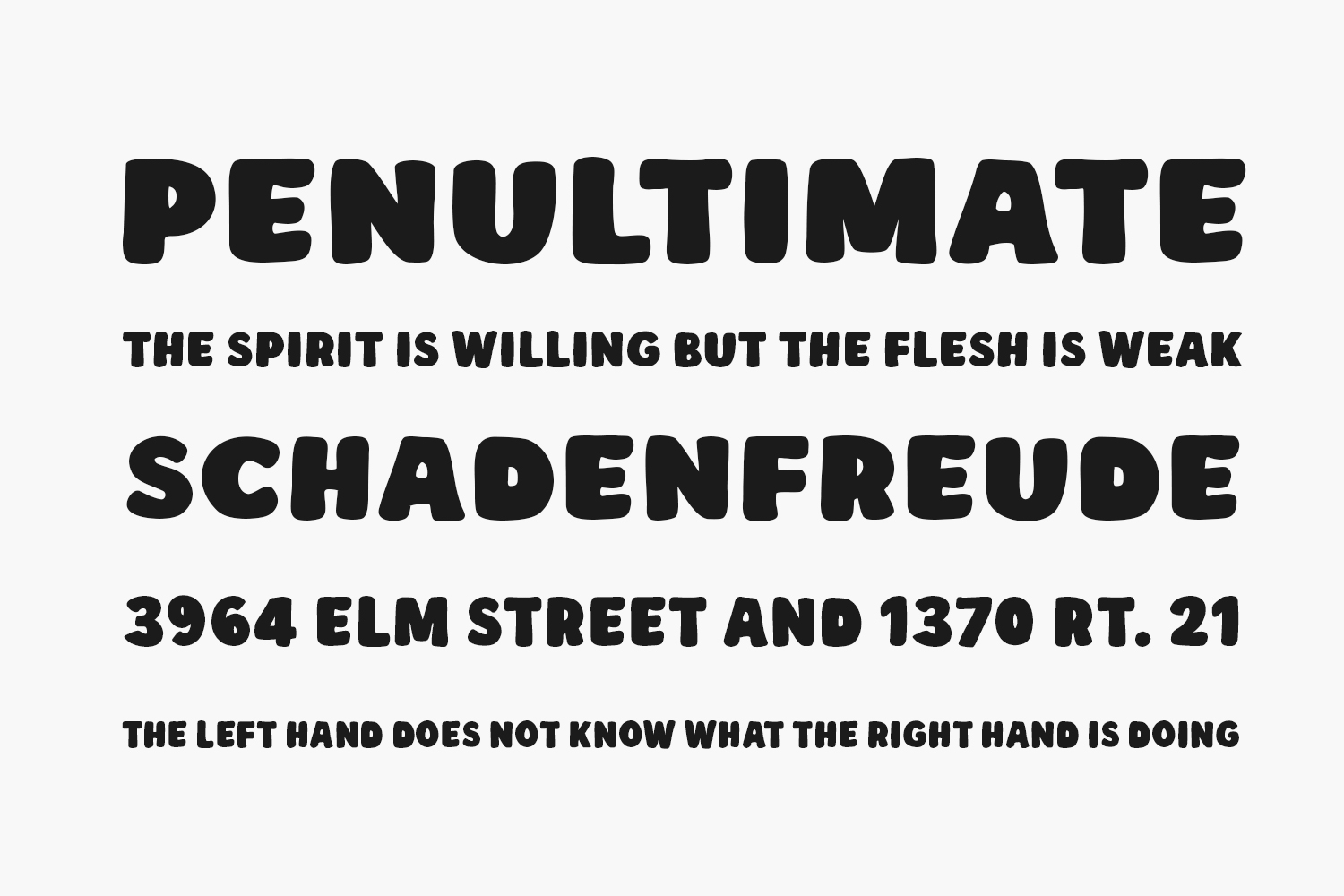
Creamy Soup is a bold and bubbly display font designed by MJType to bring fun and friendliness to your creative projects. With its rounded shapes, cartoon-style letterforms, and expressive detailing, this free decorative typeface works perfectly for crafting playful logos, children’s books, greeting cards, stickers, posters, and more. Available in OTF format — ideal for designers seeking a modern, hand-drawn look that instantly connects with young audiences or casual branding.
- Playful Cartoon Style: Rounded letterforms and soft curves create a lighthearted, kid-friendly appearance.
- Ideal for Children’s Projects: Perfect for storybooks, nursery design, birthday cards, or educational materials needing a warm tone.
Creamy Soup shines across a variety of creative applications:
- Logos & Branding: Adds warmth and charm to brand identities for toy brands, baby stores, or cartoon studios needing a childlike tone.
- Kids’ Books & Illustrations: Perfect for story titles, character names, or illustrations that need a fun and approachable style.
- Greeting Cards: Brings joy to thank-you notes, invitations, or handmade gift tags.
- Packaging Design: Great for product labels on candies, mugs, notebooks, or novelty toys aimed at young audiences.
- Social Media Graphics: Creates bold text overlays for Instagram Stories, Pinterest pins, TikTok videos, and YouTube thumbnails.
Design Tips with Creamy Soup